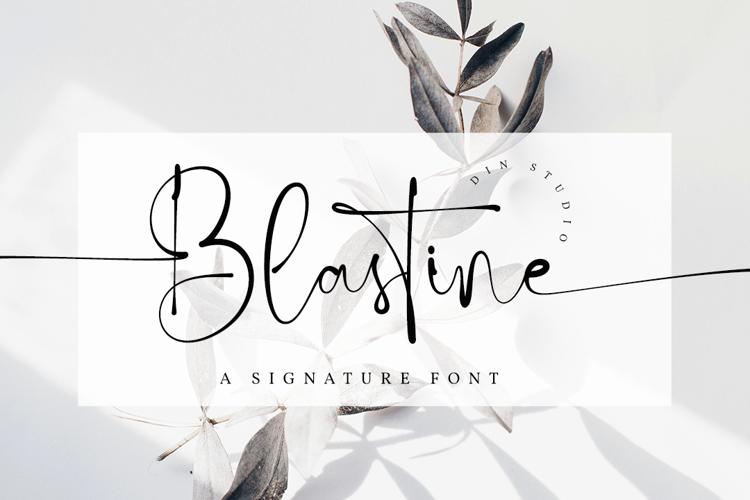
Blastine Font
Product Description :
Blastine is a beautiful signature font showing a modern, attractive typeface made for any professional project branding. It is best applied for logos, branding, cards, packaging, book covers, wedding invitations, printed quotes, merchandise, and so on.
Features include:
• Stylistic Sets
• Swashes
• Multilingual Supports
• Numerals and Punctuations